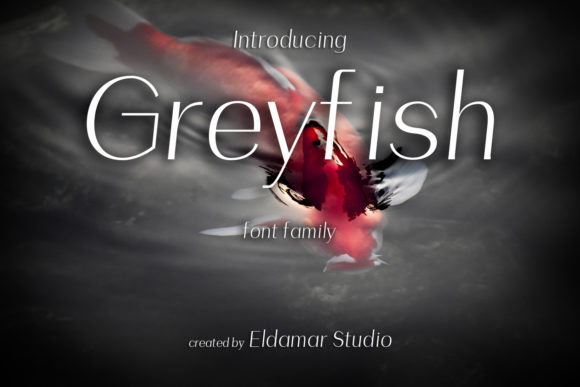
Get ready to experience the extraordinary with Greyfish Font, a masterpiece that redefines the art of typography. This minimal and elegant sans serif font is a visual symphony that captivates with its clean lines and unforgettable allure.
Designed by the renowned DmDesignsStoreArt, Greyfish Font is more than just a collection of characters; it's an embodiment of creativity and innovation. With its remarkable versatility, this font effortlessly adapts to a vast array of projects, transforming your creative visions into captivating realities.
Unleash the power of Greyfish and witness the transformation of your designs. From sleek logos that demand attention to captivating social media posts that ignite engagement, this font becomes an integral part of your creative storytelling. Its ability to elevate the ordinary and captivate audiences makes it the perfect choice for designers, marketers, and anyone seeking to make a lasting impact.
Immerse yourself in the world of Greyfish Font and discover a symphony of design possibilities. Its crisp and legible structure ensures effortless readability, even in the most compact displays. Whether crafting user interfaces, crafting brochures, or designing stunning websites, Greyfish Font guarantees a flawless reading experience.
With Greyfish Font, you gain access to a world of creative possibilities. Its versatility extends beyond traditional applications, making it the perfect companion for branding, packaging, and even fashion design. Let your imagination soar and explore the endless ways Greyfish Font can elevate your projects to new heights.
Don't settle for ordinary fonts that blend into the background. Embrace the transformative power of Greyfish Font and unlock a world of design excellence. Its timeless beauty and captivating presence will leave an indelible mark on your audience, ensuring your message resonates with power and clarity.
Take the first step towards design greatness and make Greyfish Font an indispensable part of your creative arsenal. Its ability to transform the ordinary into the extraordinary will leave you in awe, while its user-friendliness guarantees a seamless and enjoyable experience.
Experience the Greyfish Font difference today and embark on a creative journey that will redefine your design horizons. Immerse yourself in a world of possibilities and let your imagination run wild. The future of design awaits, and Greyfish Font holds the key to unlocking its limitless potential.